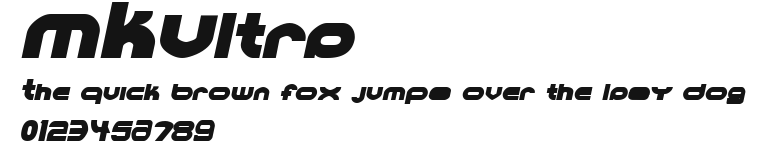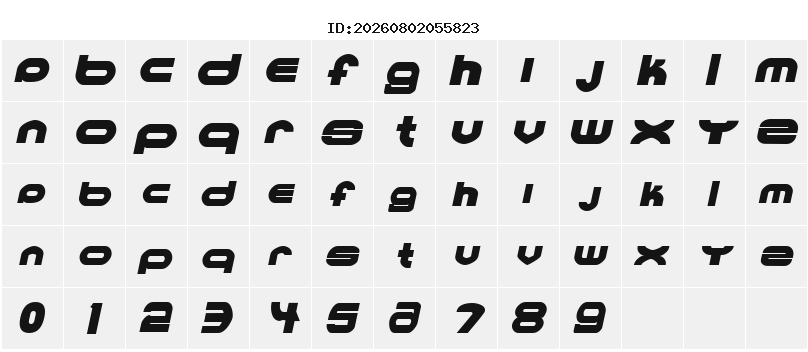
MKUltra Preview
• Font Name: MKUltra
• Full Font Name: MKUltra Italic
About MKUltra.ttf
MKUltra.ttf is a modern, elegant sans-serif font designed for ultimate readability and visual harmony. Perfect for branding, headlines, web design, and print materials.